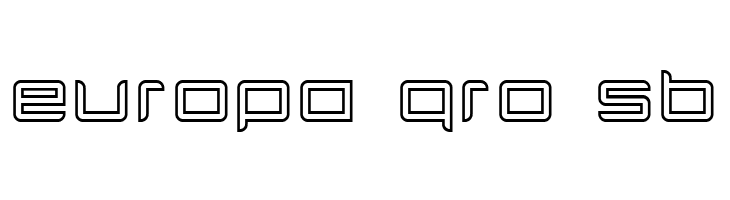
A bold, angular font with a futuristic and edgy design.
A bold, angular font with a futuristic and dynamic design.
An ornate Blackletter font with intricate details and a gothic aesthetic.
A bold serif font with a three-dimensional outlined style.
Ornamental floral dingbat set with folk art influence.
A modern, sleek font with elongated, narrow characters and medium contrast.
A modern, unicase font with elongated, narrow characters and consistent stroke width.
A modern, geometric unicase font with wide spacing and smooth, rounded strokes.
A modern, elongated font with narrow characters and rounded edges.
A modern, elongated font with rounded edges and a vintage touch.
A modern, wide font with rounded edges and consistent character spacing.
A classic blackletter font with ornate, decorative details.
A classic blackletter font with ornate, historical elegance.
A bold, geometric font with a strong, angular design.
A bold, blocky font with an aggressive, industrial style.
A bold, geometric font with a three-dimensional, angular design.
A bold, geometric font with angular, blocky letters.
A digital dot matrix font with a retro, tech-inspired style.
A bold, geometric font with a 3D effect and industrial feel.
A bold, angular font with a futuristic and geometric design.
A bold, distressed decorative font with a rugged, geometric style.
A modern, striped font with a geometric and energetic style.
A bold, geometric font with a three-dimensional effect and sharp angles.
A bold, geometric font with a futuristic outline style.
A bold, decorative font with cartoon figures, perfect for playful designs.
A bold, rounded font with a playful and retro vibe.